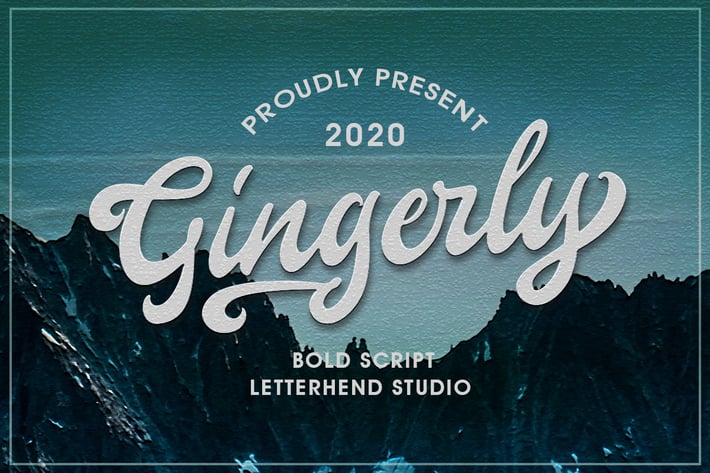
Gingerly - Bold Script Typeface
Introducing, Gingerly - a bold script which is purposely made for logotype. This type of font perfectly made to be applied especially in logo, and the other various formal forms such as invitations, labels, logos, magazines, books, greeting / wedding cards, packaging, fashion, make up, stationery, novels, labels or any type of advertising purpose.
+ uppercase & lowercase
+ numbers and punctuation
+ multilingual
+ alternates and ligatures